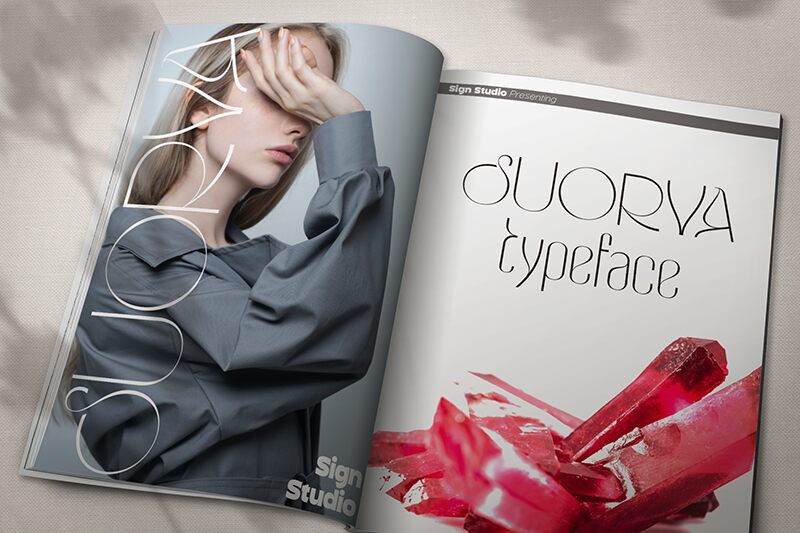
Suorva Regular
Suorva, designed by Sign Studio, is a captivating display font that effortlessly combines a retro charm with a modern twist. With its extra-light weight, Suorva adds an elegant touch to any project. Perfect for vintage-inspired branding, logo design, and packaging, this font will transport your audience back in time while maintaining a contemporary appeal. Suorva's delicate strokes and distinctive letterforms make it ideal for creating eye-catching headlines, posters, and social media graphics. Let this unique typeface elevate your projects to new heights with its nostalgic yet contemporary aesthetic.
Suorva Typeface by Sign Studio